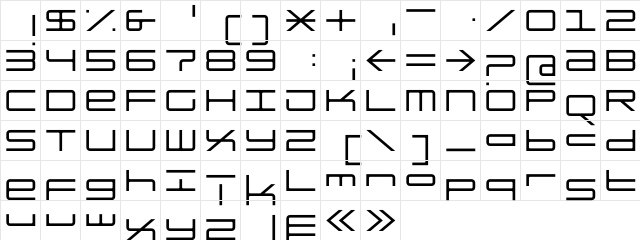
digi Medium
| Foundry | shamrock international |
| Designer | shamrock |
Design Context for digi Typeface
digi takes a measured approach to typography — its balanced proportions and neutral character make it a reliable workhorse for both digital and print work.